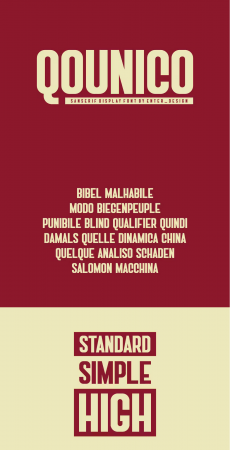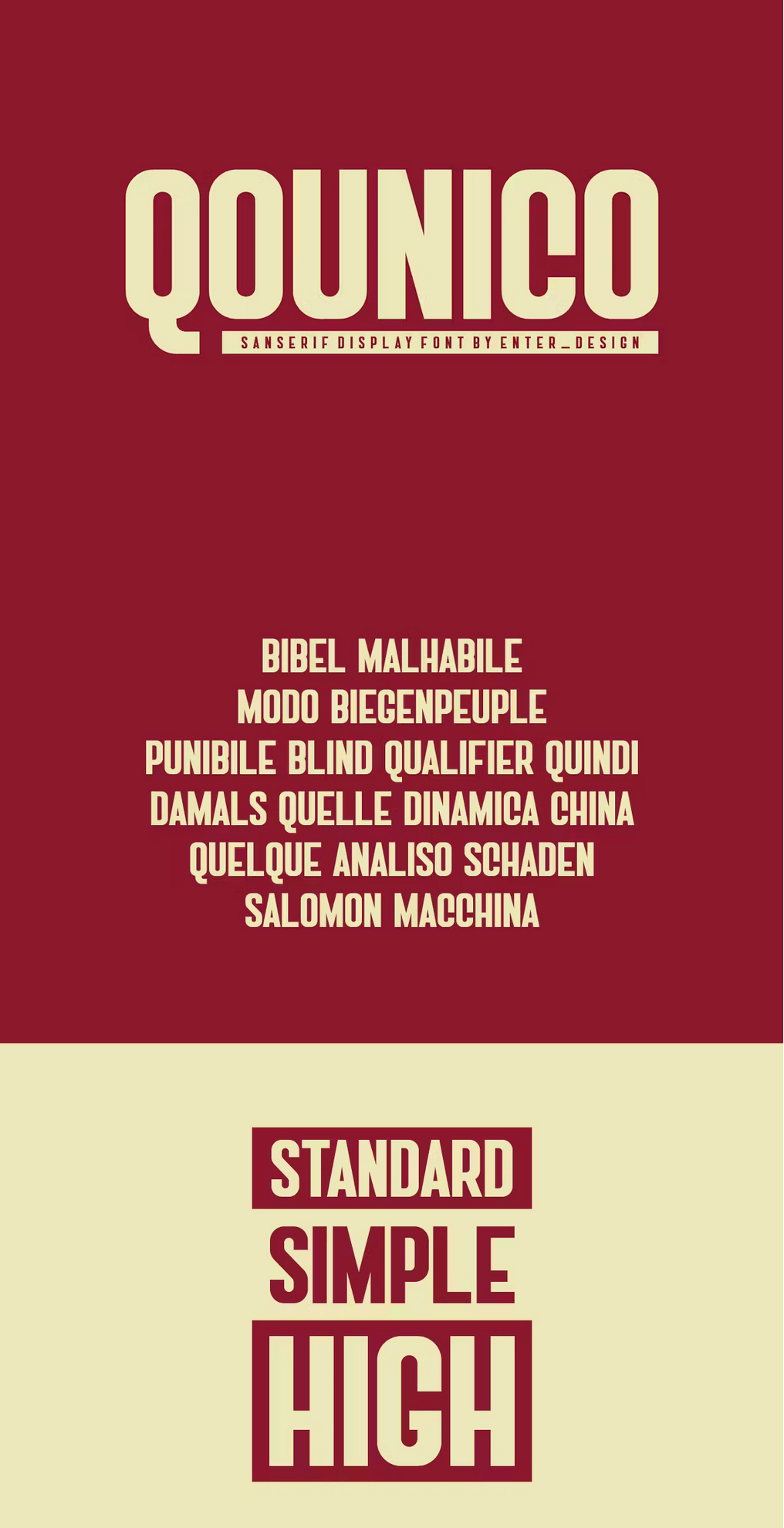
Introducing our new product Qounico Font - Modern Font
Qounico Font - Modern Font is a bold and authentic display font. The font is suitable for any branding project like logo, esport, and many more. outstanding in a wide range of contexts.